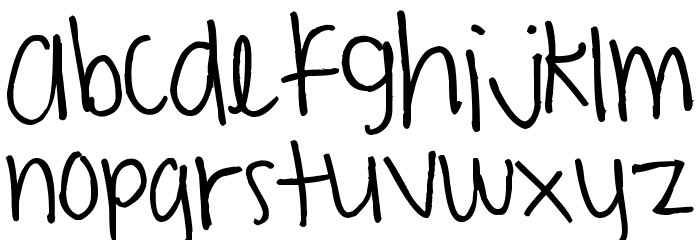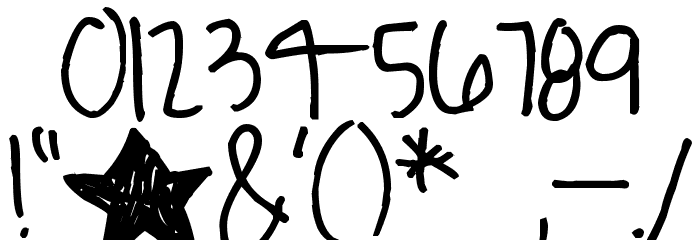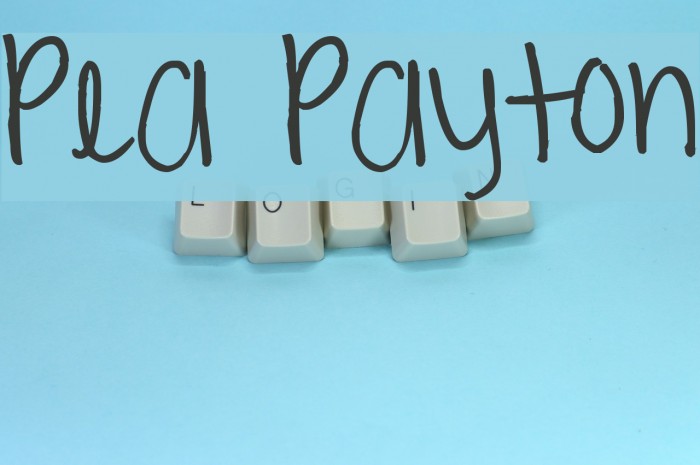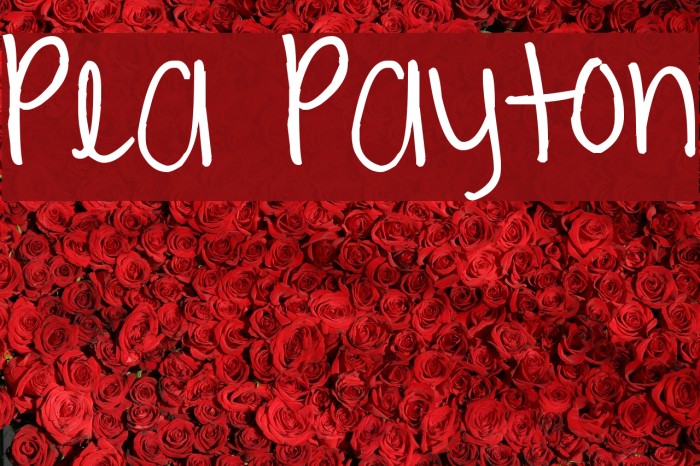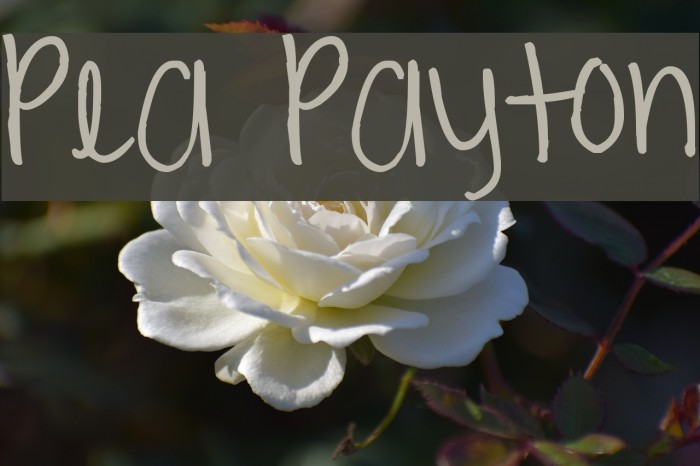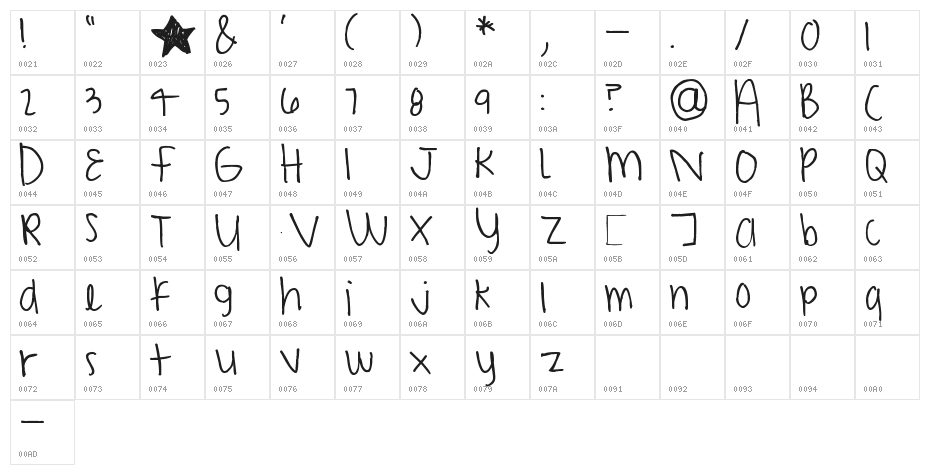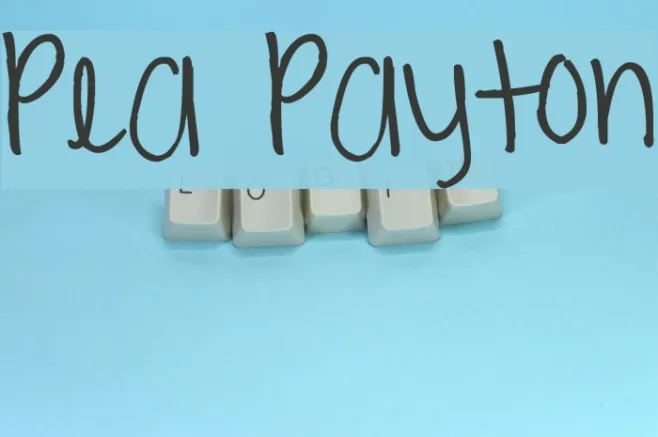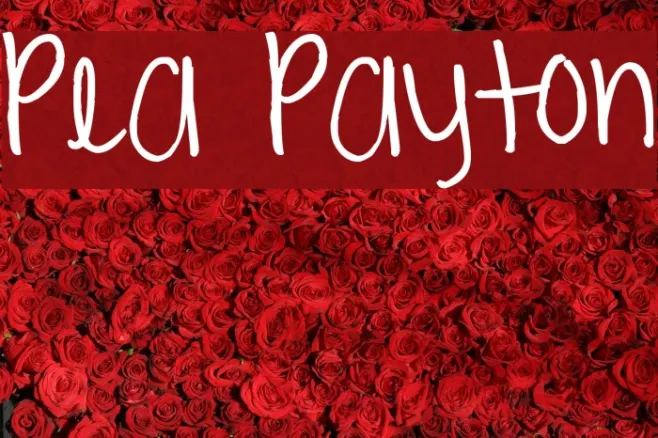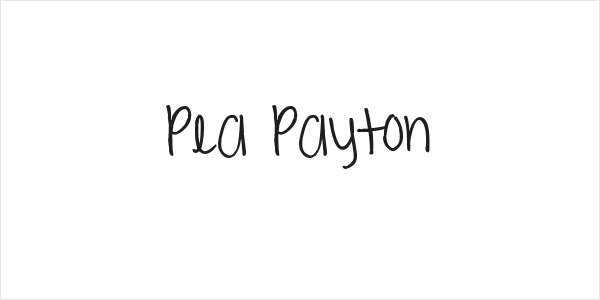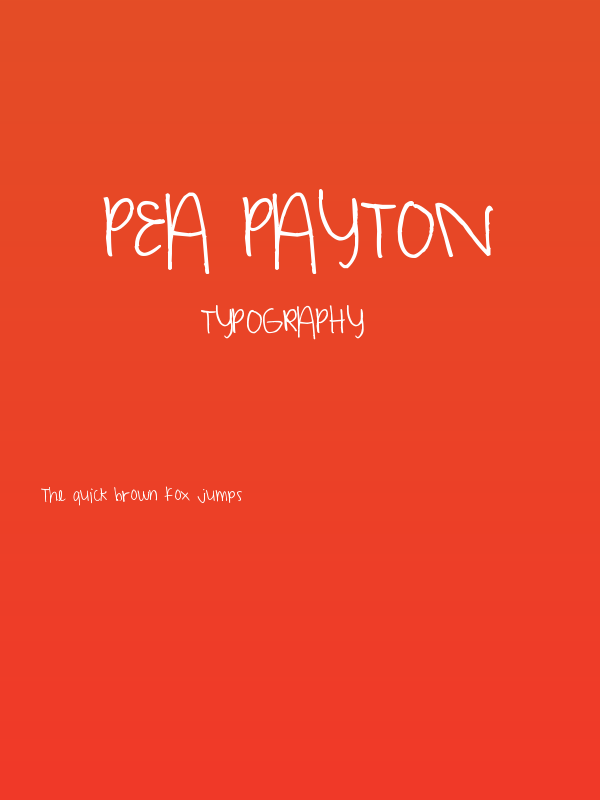
Pea Payton Font
This font exhibits a playful and informal handwritten style, characterized by its casual and slightly irregular letterforms. The strokes are uneven, giving it a personal and approachable feel, reminiscent of a child's handwriting or a quick note jotted down. The uppercase and lowercase letters maintain a consistent style, with rounded edges and a slight tilt, adding to its whimsical nature. The numbers and special characters follow the same playful aesthetic, making it suitable for projects that require a touch of personality and warmth.
A playful, informal handwritten font with a whimsical and personal touch.
- Proposed Projects: Ideal for children's books, greeting cards, personal notes, and casual branding projects.
- Overall Style: Casual
- Use Case: Greeting cards, Personal notes, Informal branding